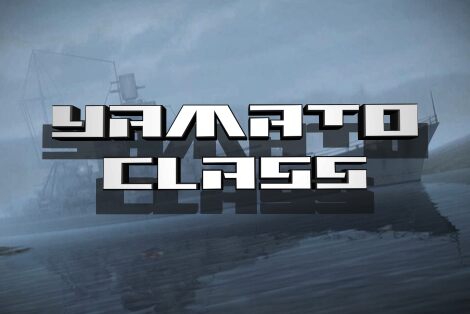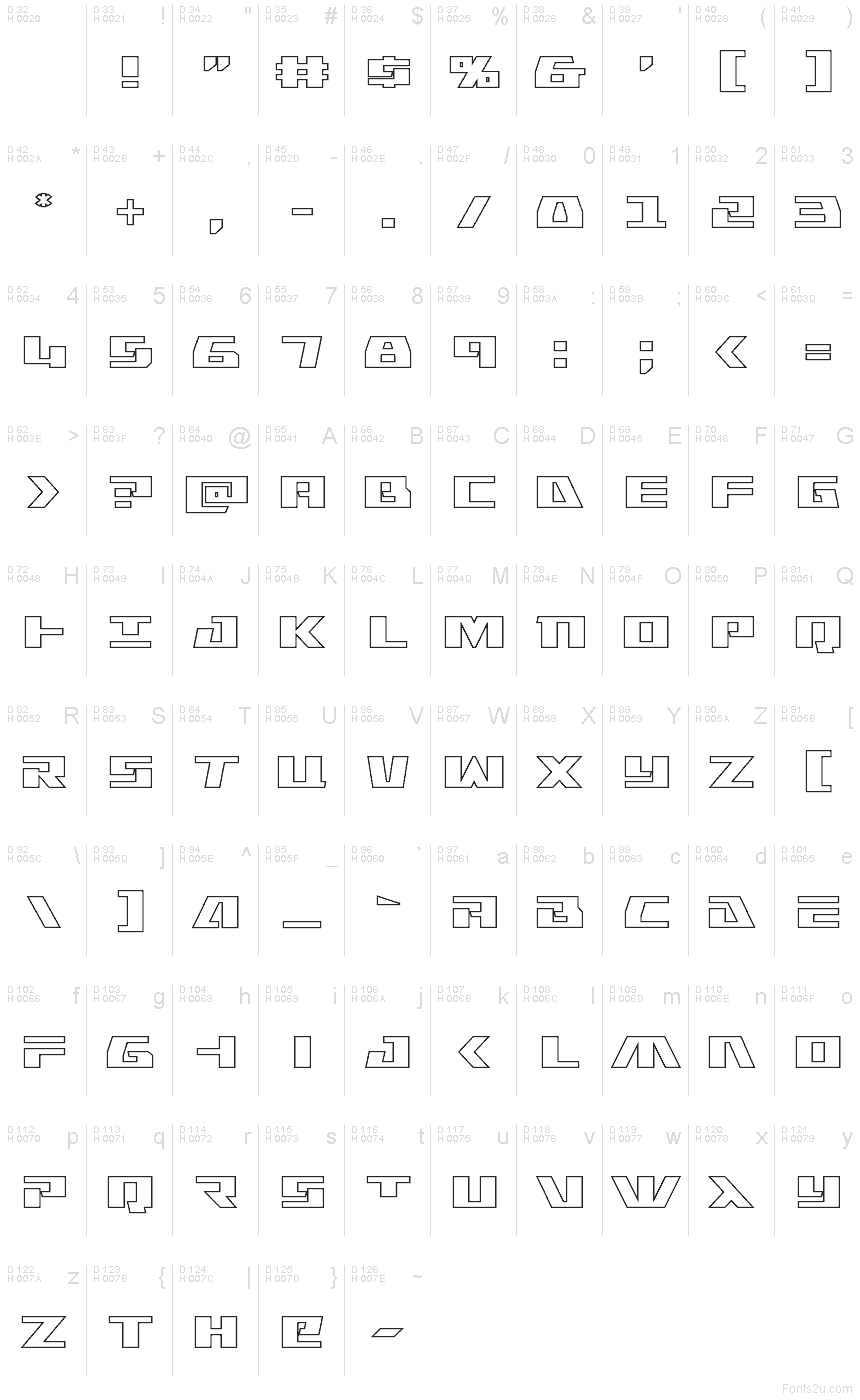
Yamato Class Outline
Yamato Class Outline font by Iconian Fonts is a free techno outlined display typeface from the Yamato Class family. Its maze-like strokes, squared corners, and tight modular rhythm create a crisp, neon-sign silhouette that feels part circuit board, part mech plating. The hollow interiors keep it airy even at large sizes, so titles read loud without feeling heavy.
Using Yamato Class Outline, you get instant sci‑fi swagger for anime event branding, mecha game titles, synthwave posters, esports logos, tech YouTube thumbnails, and convention badges. This free font shines when tracked slightly and set big; pair it with a simple sans for body copy to let the wired outlines stay in the spotlight.